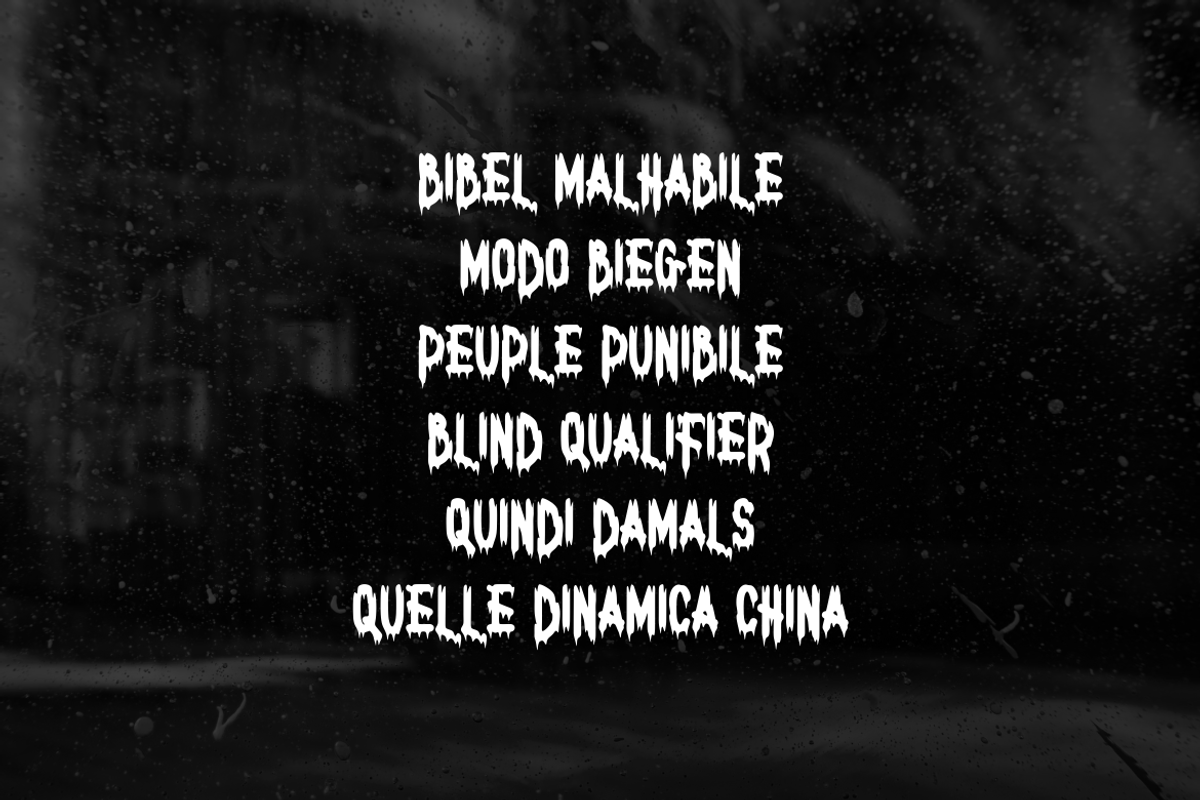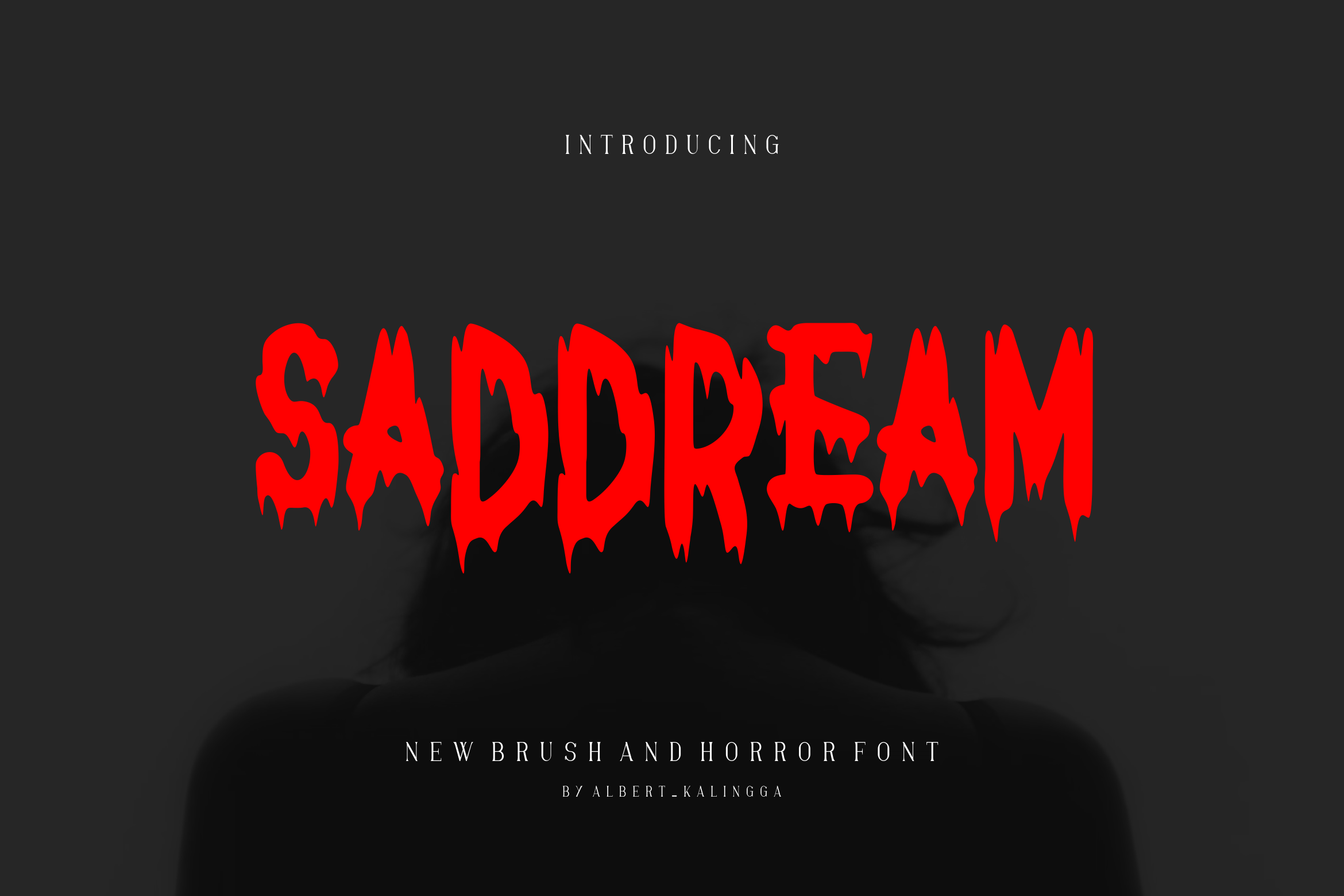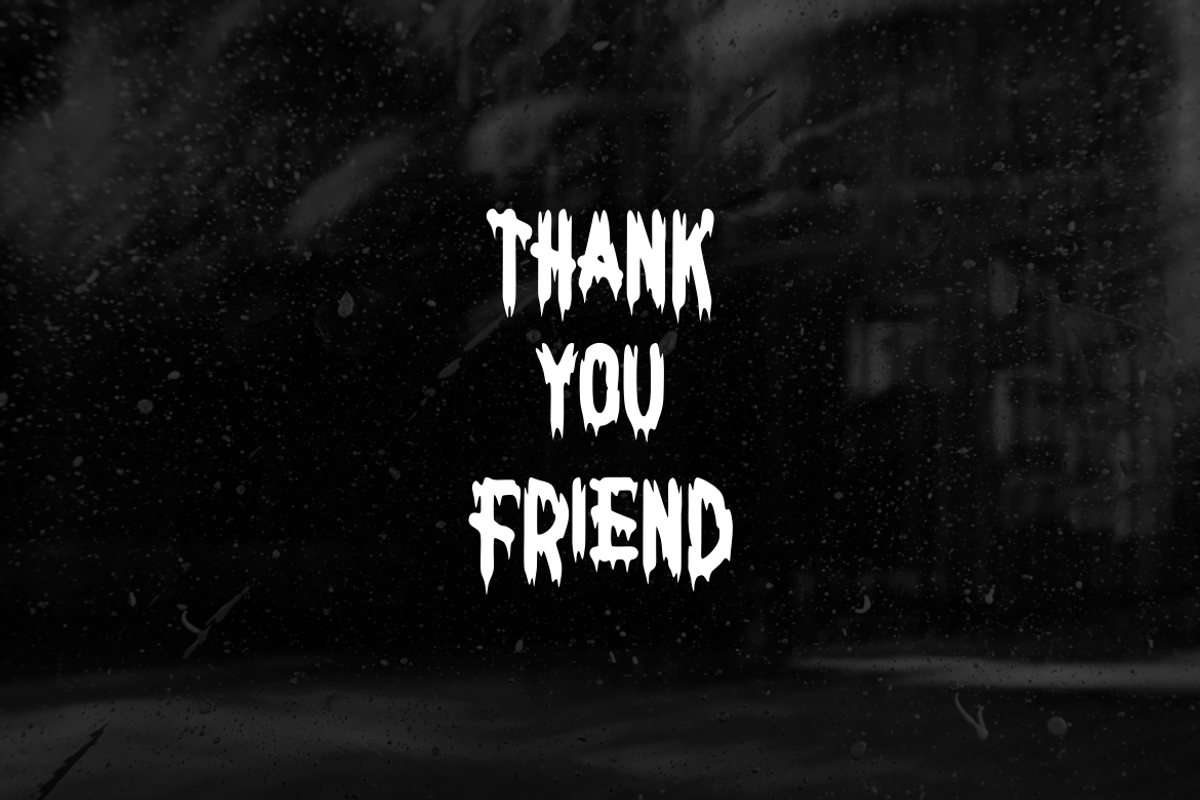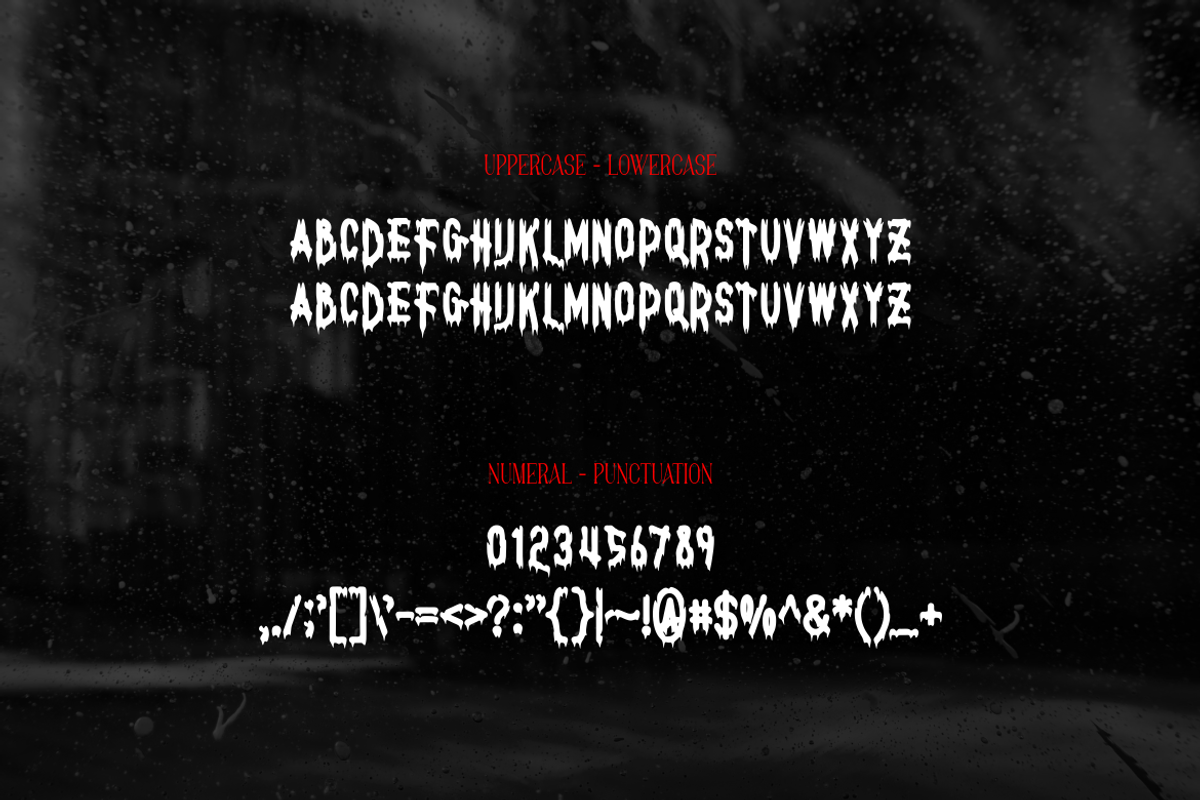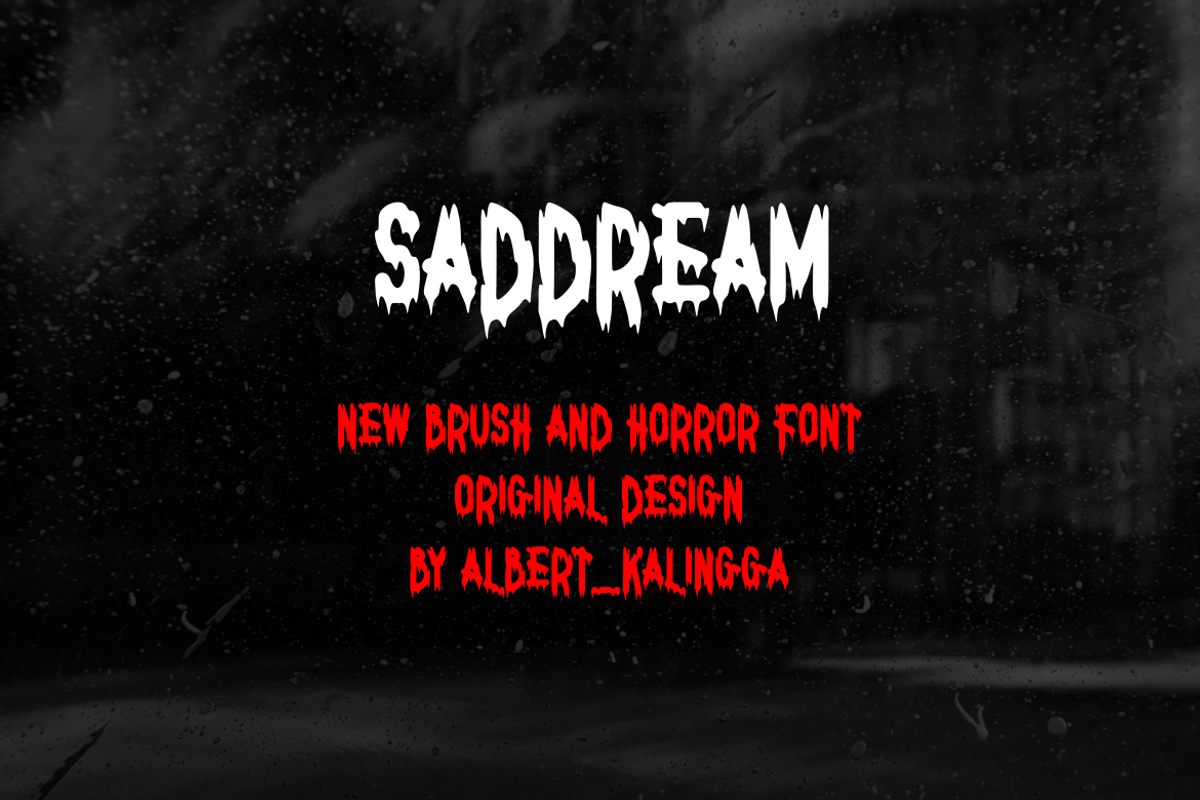
Saddream Font
Introducing our new product Saddream Font - Modern Font
Saddream Font - Modern Font is a bold and authentic display font. The font is suitable for any branding project like logo, esport, and many more. outstanding in a wide range of contexts.